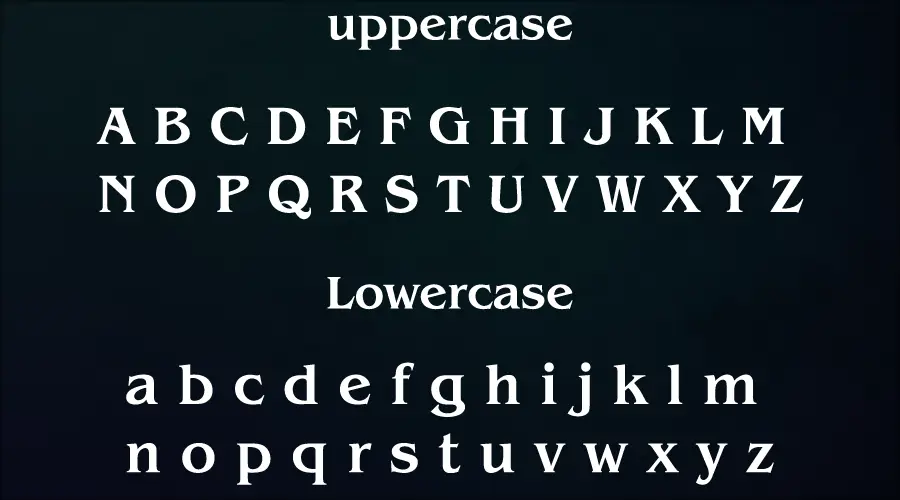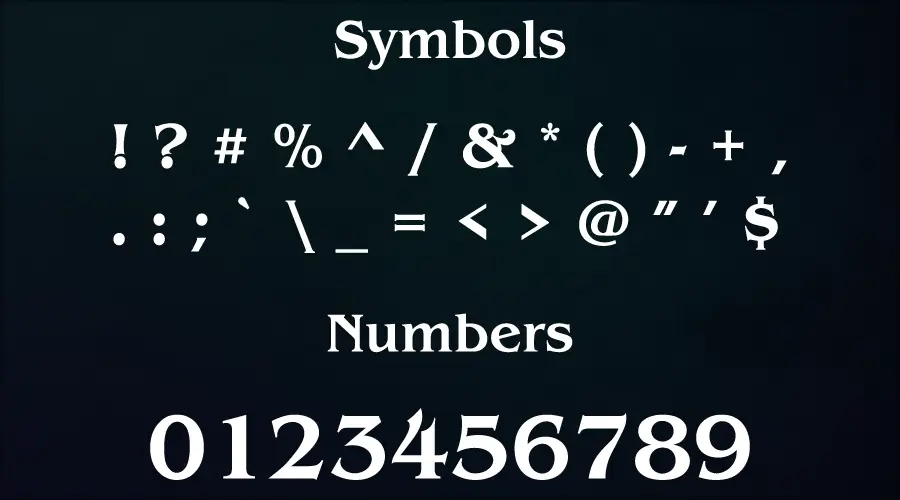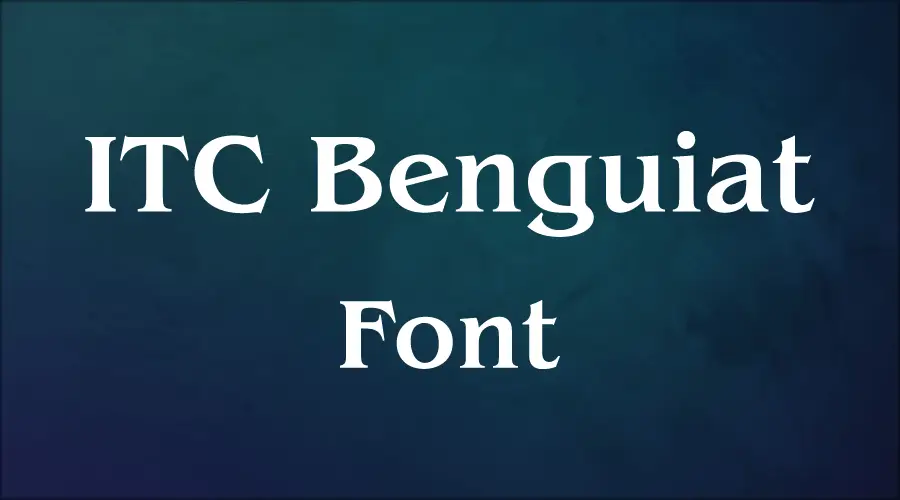
ITC Benguiat font is a serif typeface designed by Brooklyn-born type designer and letterer Ed Benguiat in 1977. ITC Benguiat is published through International Typeface Corporation. The design was inspired by the Art Nouveau movement and features a large x-height and high-waisted capitals. The font family consists of 3 weights at 2 widths each, with complementary italic.
It has a pro version (ITC Benguiat Pro) released in September 2008. It includes support for Central European and many Eastern European characters.
ITC Benguiat is such a font that has no usage limitation. Design platforms are most suitable to use this font. When you decide to make an elegant design and want to add text, ITC Benguiat font is the perfect choice on that works. The font is very stylish and elegant so it is best for design and text-decoration. You can use this font on the platforms below:
- Banner
- Business Card
- Certificate
- Gift Card
- Website
- Greetings Card
- Brochure.
- Official Documents and printing purposes.
Ans: Yes, It has. The closest similar alternative in Google fonts to ITC Benguiat is Carter One.